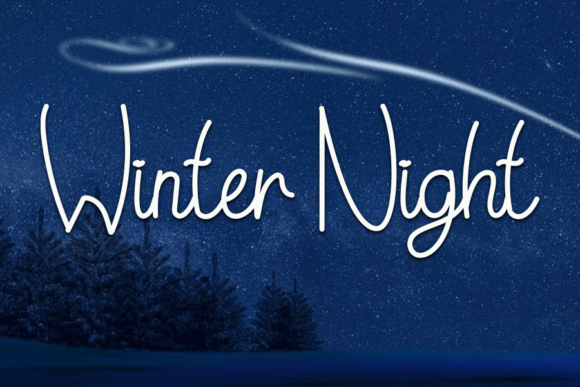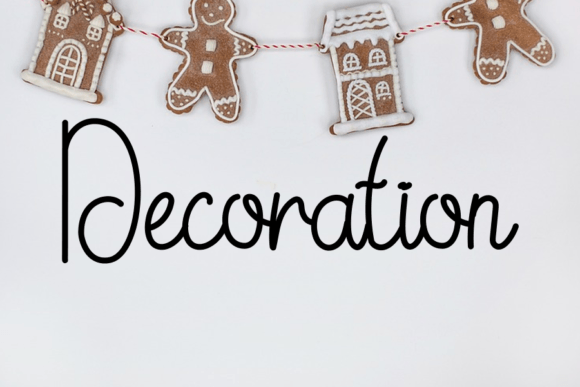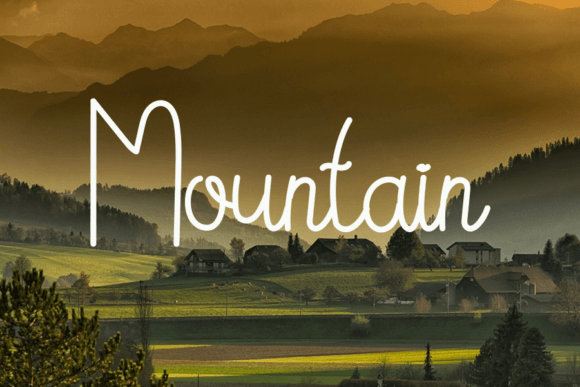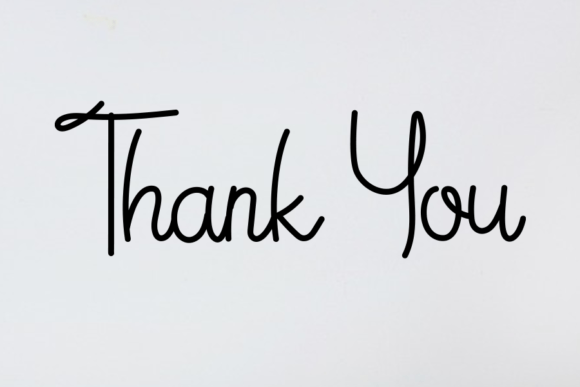
Introducing Butter Sandy Font: The Perfect Handwritten Companion for Designers and Crafters
Are you on the hunt for a font that embodies simplicity, friendliness, and versatility? Look no further than Butter Sandy, a charming handwritten font designed to meet the needs of designers, crafters, and anyone looking to add a personal touch to their projects. Whether you’re working on crafts, digital designs, presentations, or greeting cards, Butter Sandy has the potential to become your go-to font for any occasion.
The Characteristics of Butter Sandy Font
Butter Sandy is more than just a font; it’s a tool that brings a sense of warmth and approachability to your work. Here are some of its key characteristics:
- Simple and Friendly: The font’s simplicity makes it easy to read and understand, while its friendly demeanor adds a touch of warmth to any project.
- Handwritten: The organic, handwritten nature of Butter Sandy gives it a personal and unique feel, perfect for projects that require a human touch.
- Versatile: From digital designs to handmade crafts, Butter Sandy can be used across a variety of mediums and projects.
Uses of Butter Sandy Font
The versatility of Butter Sandy makes it suitable for a wide range of applications. Here are some of the ways you can use this wonderful font:
- Crafts: Add a personal touch to your handmade crafts, such as scrapbooking, DIY decorations, and customized gifts.
- Digital Design: Use Butter Sandy in your digital projects, including social media graphics, blog posts, and website designs, to give them a friendly and approachable feel.
- Presentations: Make your presentations more engaging and less formal with Butter Sandy, perfect for when you want to connect with your audience on a more personal level.
- Greeting Cards: Create beautiful and heartfelt greeting cards for any occasion, from birthdays to thank you notes, with Butter Sandy adding that special touch.
Why Choose Butter Sandy Font?
- Easy to Read: Despite its handwritten nature, Butter Sandy is remarkably legible, making it suitable for both short and long texts.
- Adaptable: It can be used in various contexts, from formal to informal, by simply adjusting the size, color, or pairing it with other fonts.
- Unique yet Familiar: Butter Sandy strikes the perfect balance between being unique and familiar, making your projects stand out without being too over-the-top.
Tips for Using Butter Sandy Font Effectively
- Pair it with Other Fonts: Combine Butter Sandy with more formal or decorative fonts to create visual interest and hierarchy in your designs.
- Adjust the Size and Color: Play with different sizes and colors to emphasize certain parts of your text or to match your brand’s aesthetic.
- Use it for Headers and Titles: Butter Sandy’s friendly and approachable nature makes it perfect for headers and titles, drawing attention and adding personality to your work.